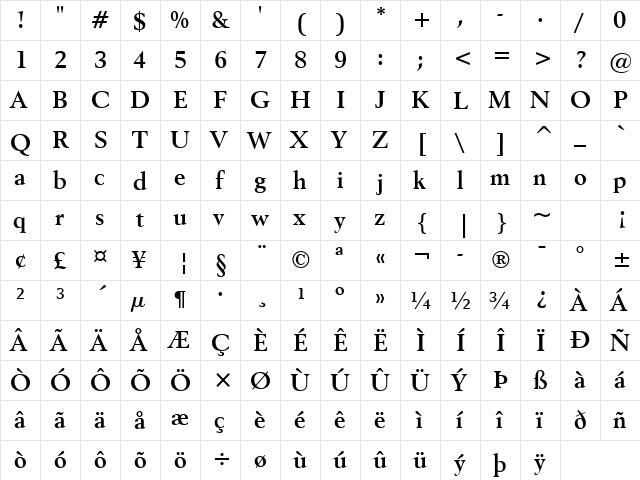
Revival565 BT Bold
Design Context for Revival565 BT Typeface
Revival565 BT takes a measured approach to typography — its balanced proportions and neutral character make it a reliable workhorse for both digital and print work. Its bold stroke weight gives it real presence on the page.
Pro Tip: Use Revival565 BT in both headline and body roles to test its range before committing to a single application.